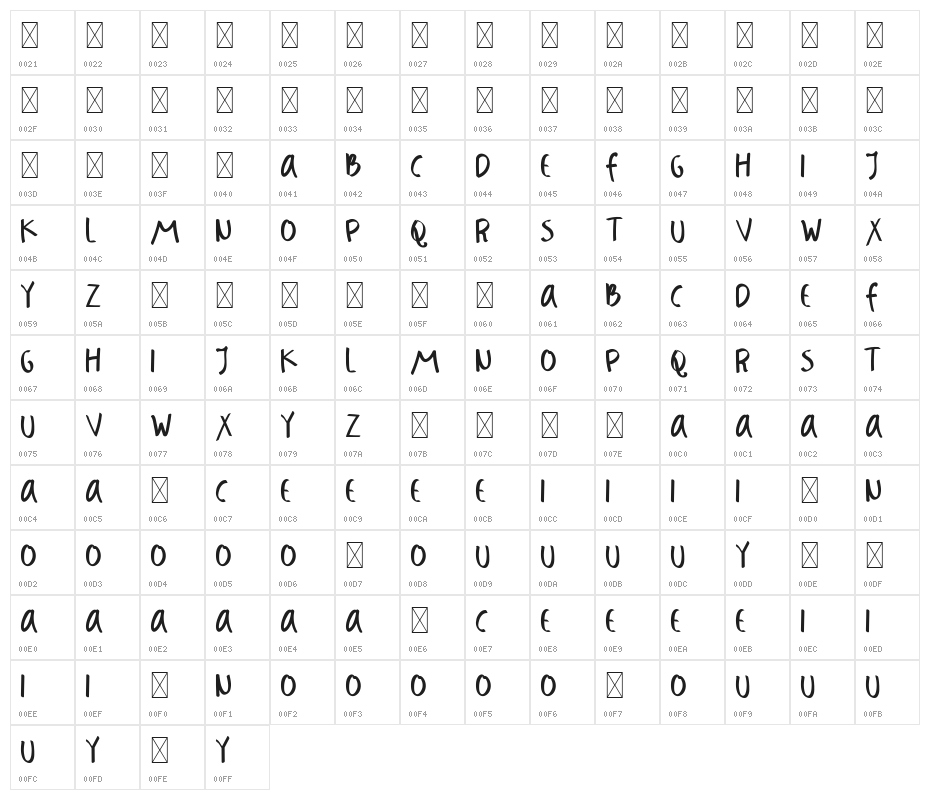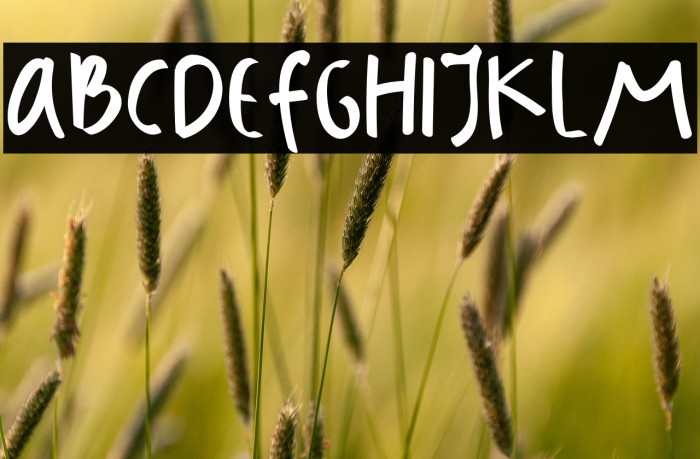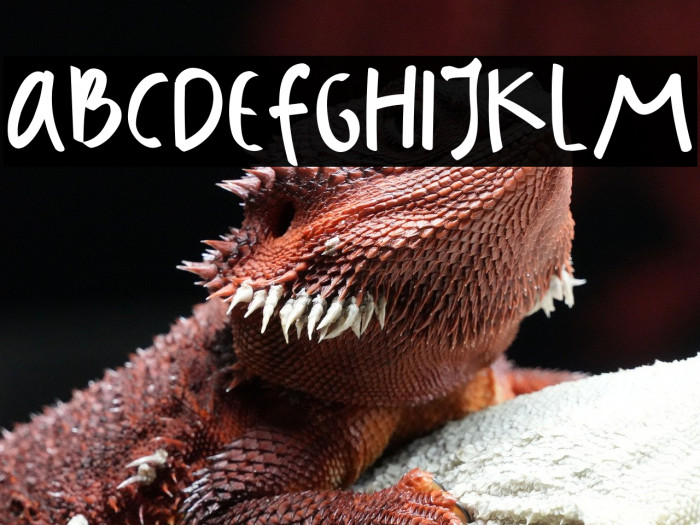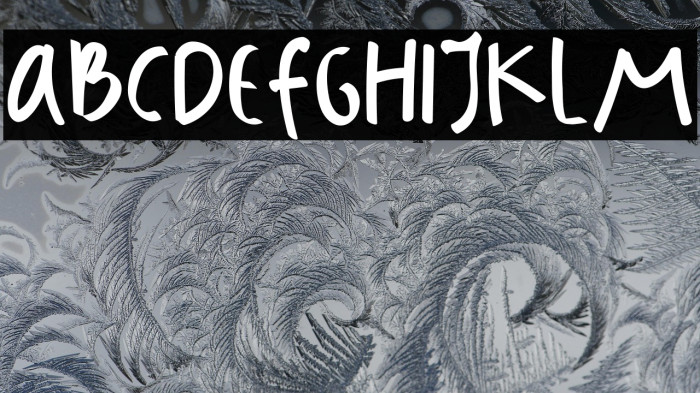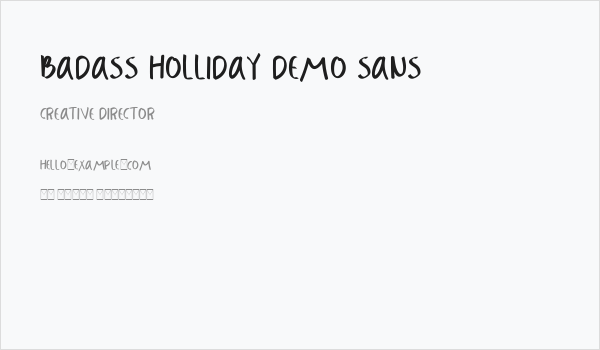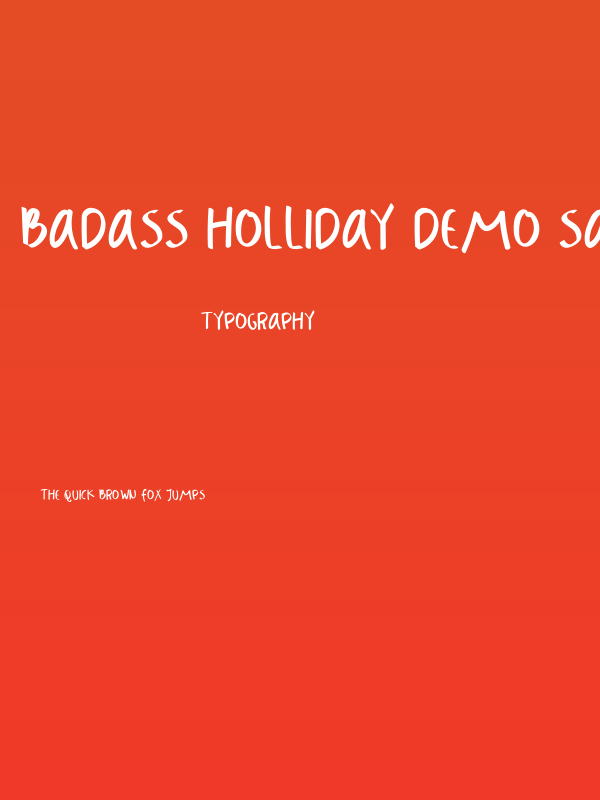
Badass Holliday Demo Sans Font
Badass Holliday Demo Sans Description
This font features a bold and expressive handwritten style, characterized by its playful and dynamic letterforms. The uppercase letters are slightly irregular, giving a casual and informal feel, while maintaining readability. The strokes are thick and consistent, creating a strong visual impact. The font lacks lowercase letters and numbers, focusing solely on uppercase characters. Its unique style makes it suitable for creative and artistic projects, where a personal touch is desired.
| Proposed Projects | Ideal for greeting cards, posters, branding, and social media graphics. |